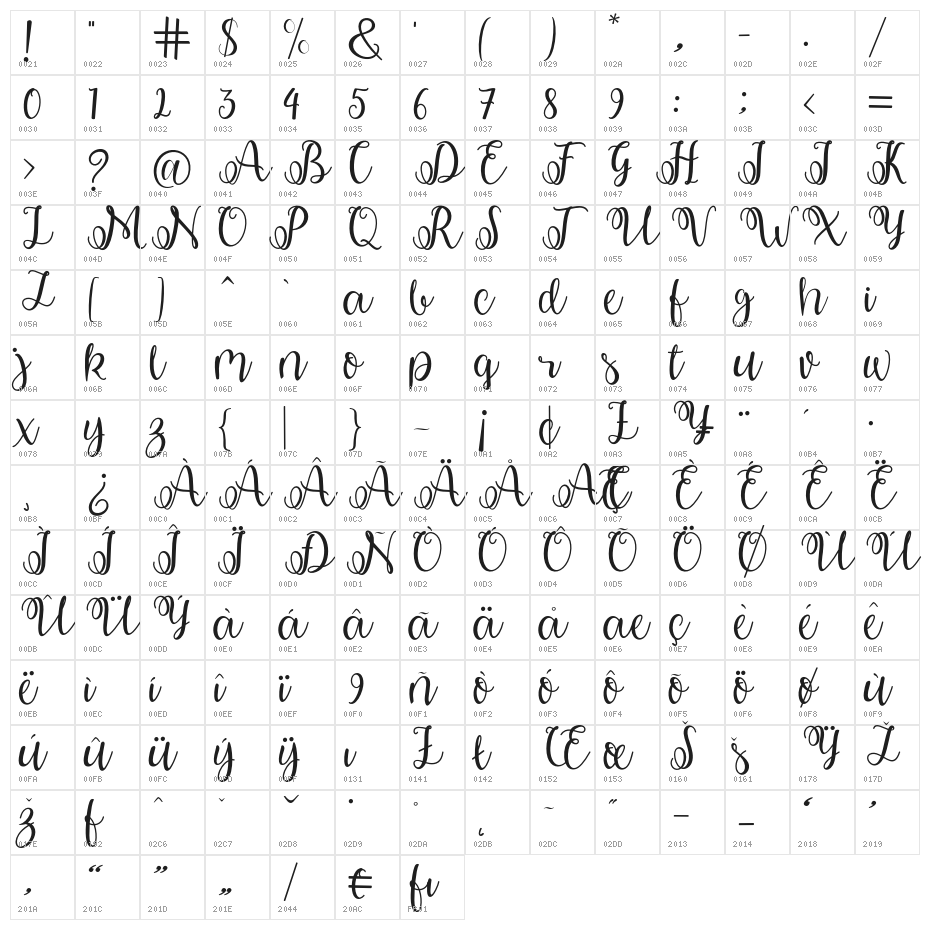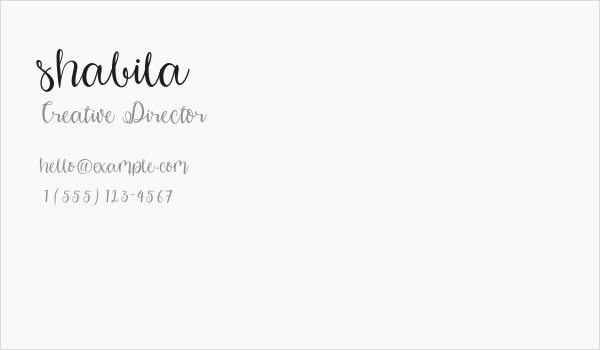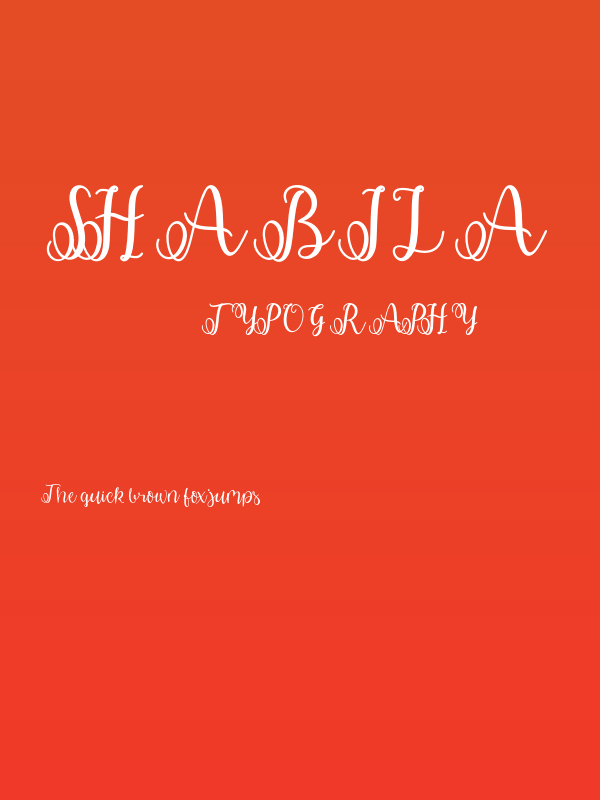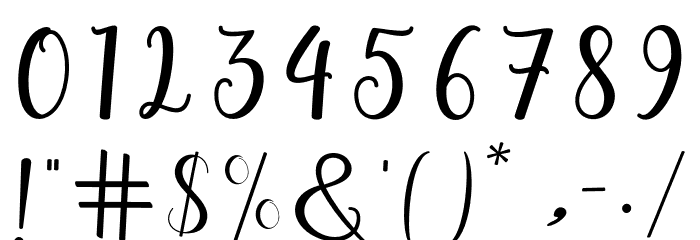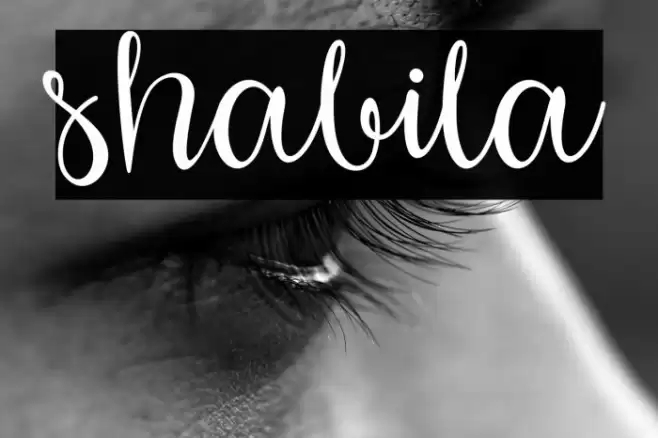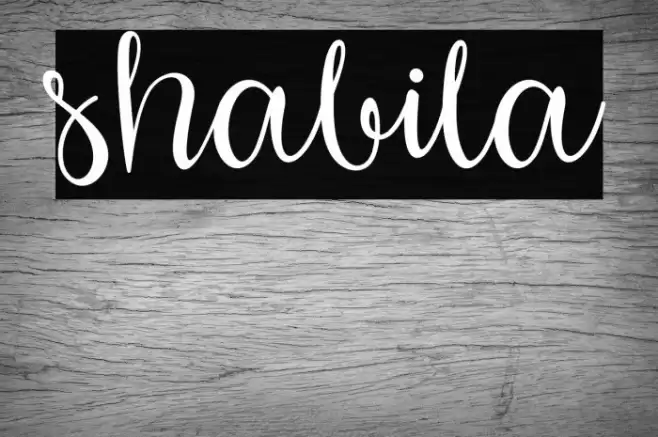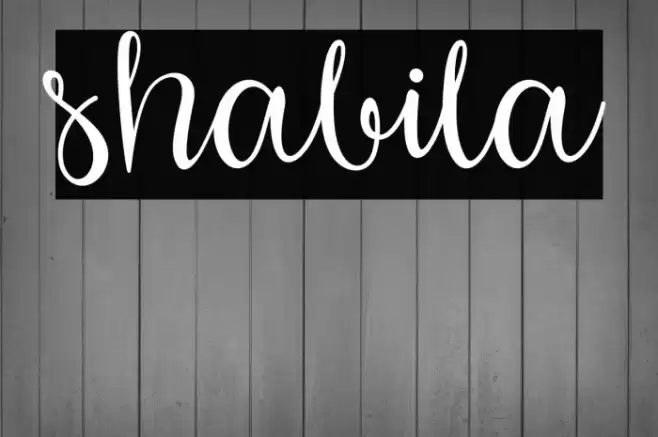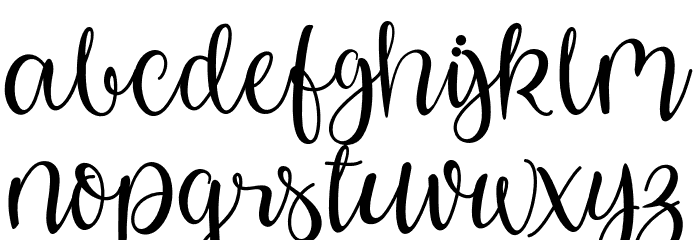
shabila Font
shabila Description
This font features a decorative and elegant script style with a playful yet sophisticated flair. The uppercase letters are characterized by intricate loops and swirls, giving them a whimsical appearance. The lowercase letters maintain a consistent flow with smooth, rounded curves, enhancing readability while retaining a stylish look. The numerals are distinct and easy to read, with a slight slant that complements the overall script style. Special characters are creatively designed, adding to the font's unique charm. This font is perfect for projects that require a touch of elegance and creativity.